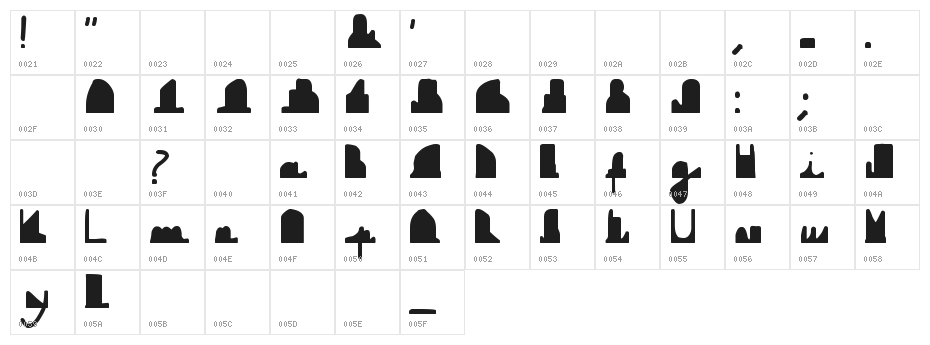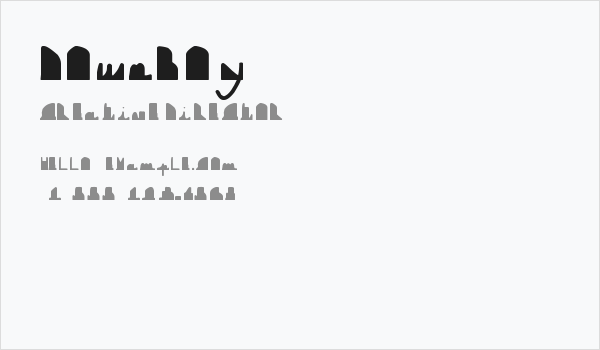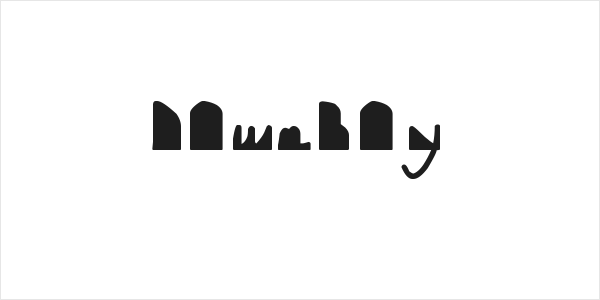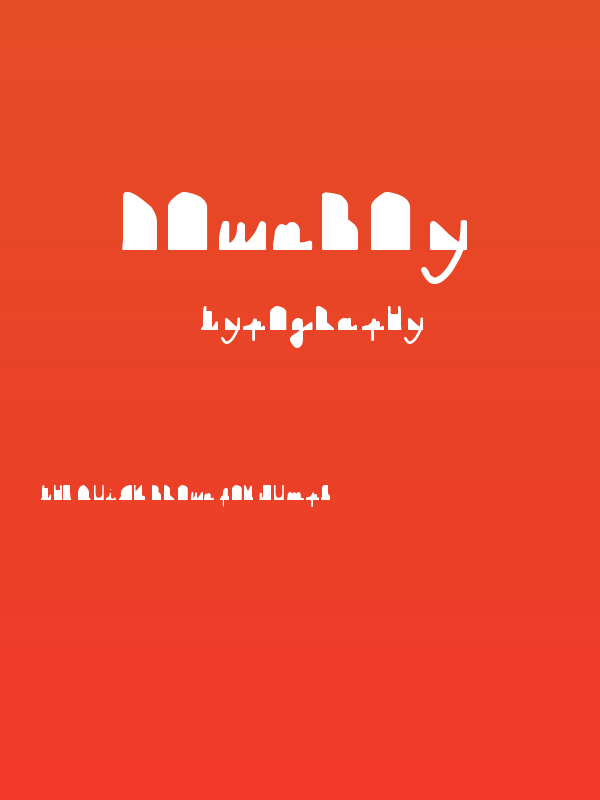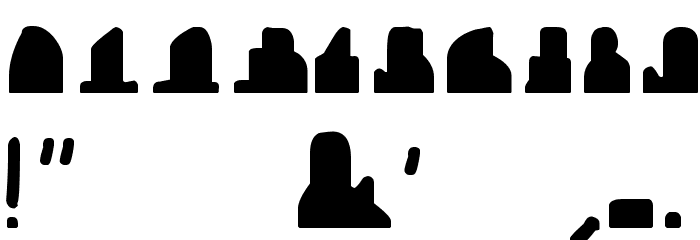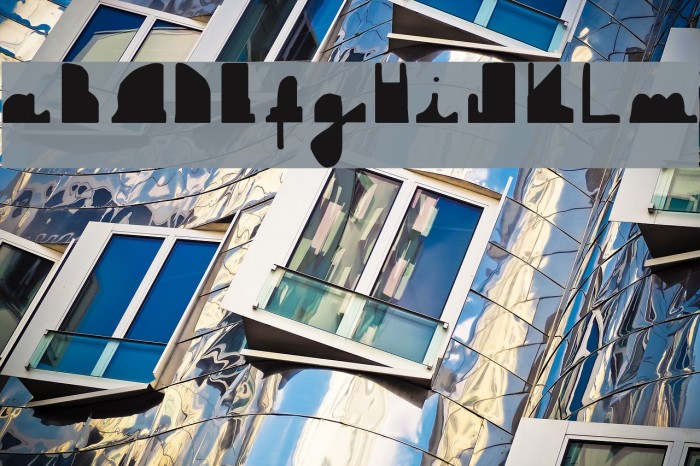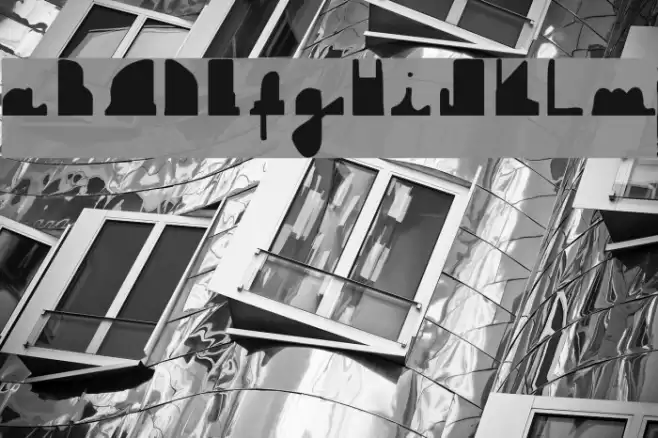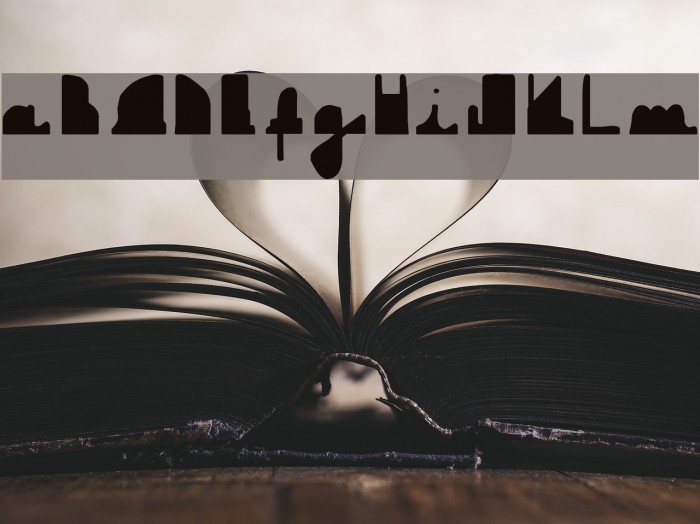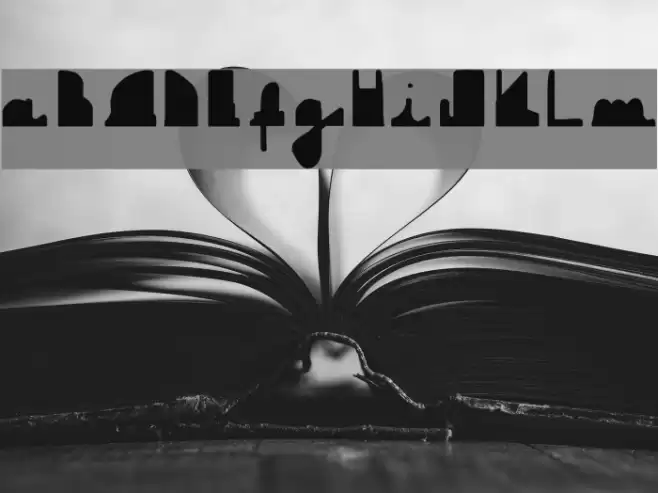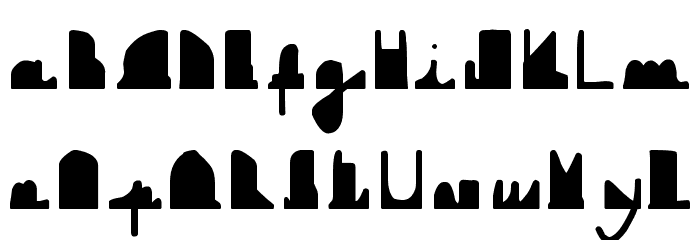
DownBoy Font
DownBoy Description
This font features a bold and playful design with a unique, abstract style. The characters are heavily stylized with thick, solid shapes that create a sense of whimsy and creativity. Each letterform is distinct, with exaggerated curves and angles that give the font a lively and dynamic appearance. The uppercase and lowercase letters maintain a consistent weight, contributing to a cohesive look across the typeface. The numbers and special characters are equally bold, ensuring they stand out in any design. This font is perfect for projects that require a fun and eye-catching aesthetic.
| Overall Style | Playful, Abstract, Whimsical |
| Proposed Projects | Ideal for children's books, playful branding, posters, and creative projects. |